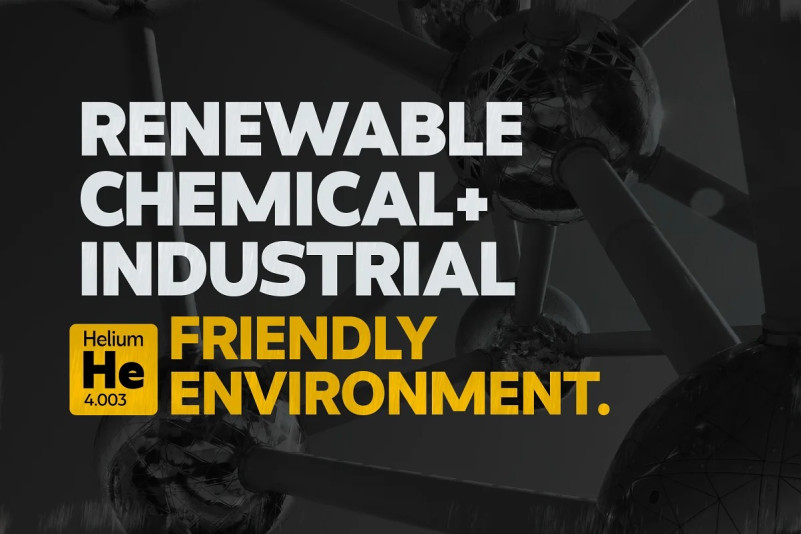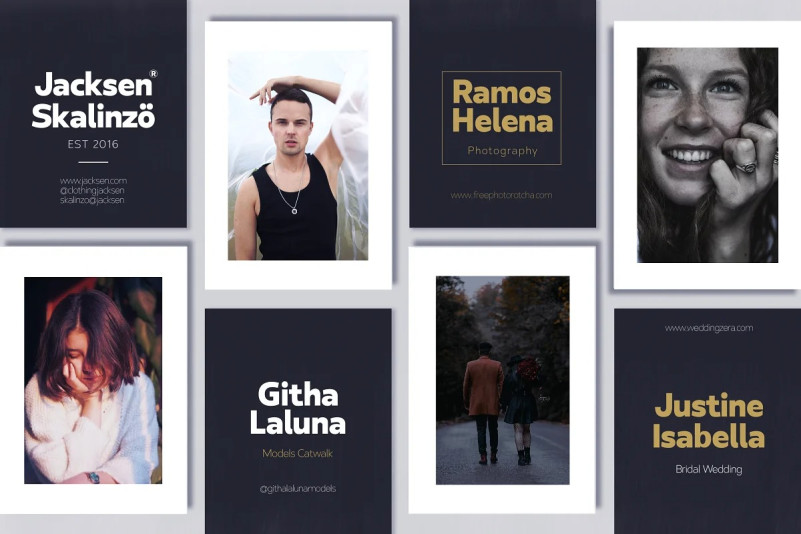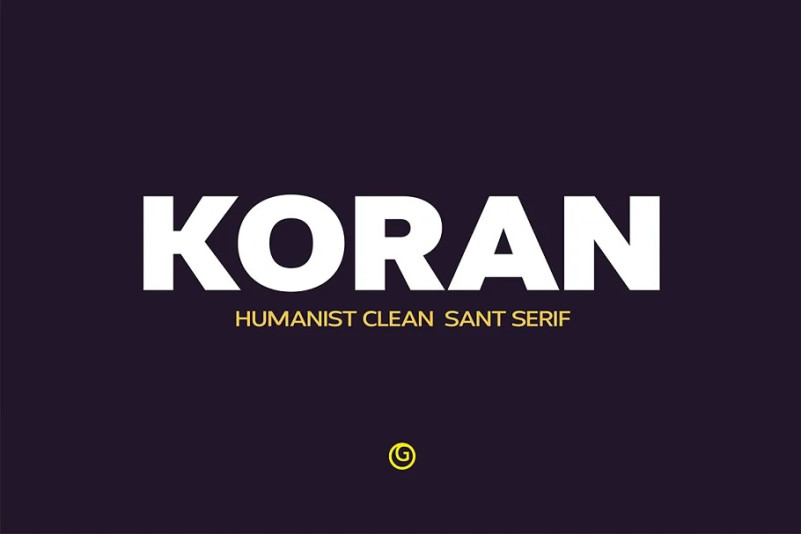
Koran Font
Koran Sans Font Family is a clean family sans humasnist style that is absolutely perfect for editorial headlines. The complete font family of upright and italic letters is easy for you to use 18 styles in many projects. This font is complete with symbols and multilingual. This font style is bold, bold, and sleek, making it perfect for editorial, web, posters, t-shirts, and magazine covers. . etc